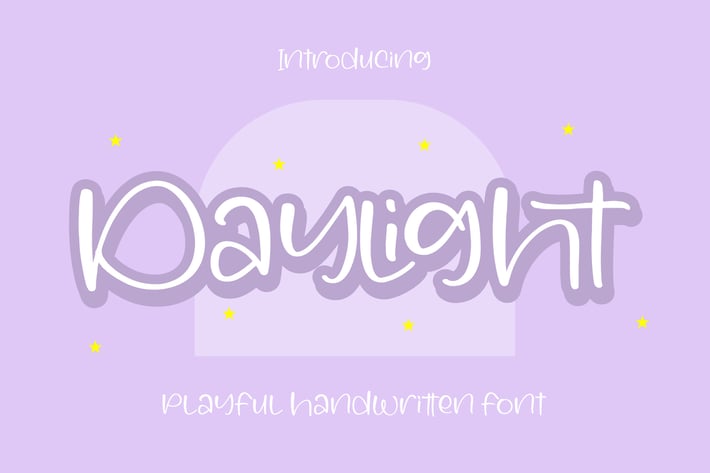
Daylight Playful Handwritten Font
Daylight is a fun and cheerful handwritten font that brings a bright, friendly energy to your designs. With its casual curves, bouncy baseline, and smooth strokes, this font radiates positivity and creativity — perfect for adding a playful handmade touch.
Ideal for kids’ projects, greeting cards, branding, posters, or social media visuals, Daylight helps your message shine with warmth and joy. Its lighthearted design makes every word feel approachable, personal, and full of sunshine.
Playful handwritten style
Uppercase & lowercase letters
Numbers & punctuation
Alternates & ligatures
Kids & School Projects
Greeting Cards
Cute Branding & Packaging
Posters & Quote Designs
Social Media Templates
Craft & DIY Projects
Logos and Merch Design
Shine brighter with Daylight — a playful handwritten font full of warmth and fun!